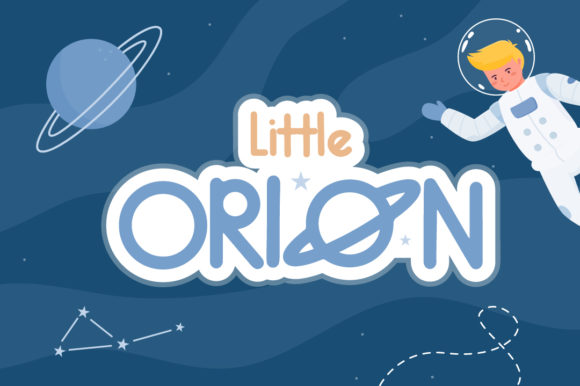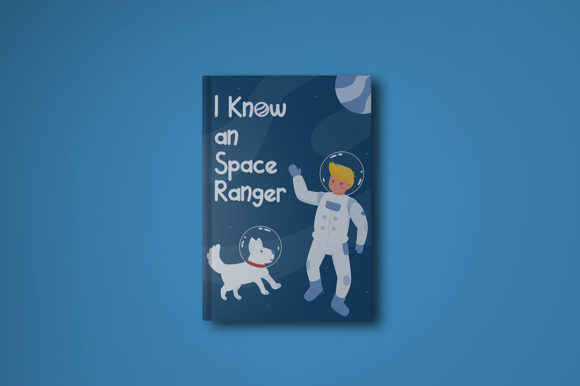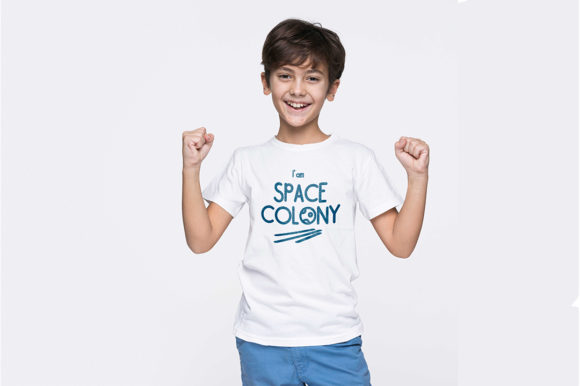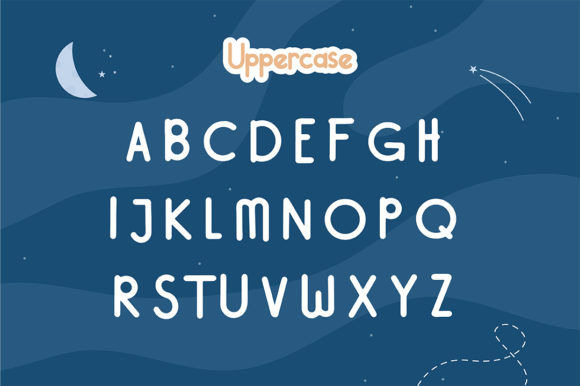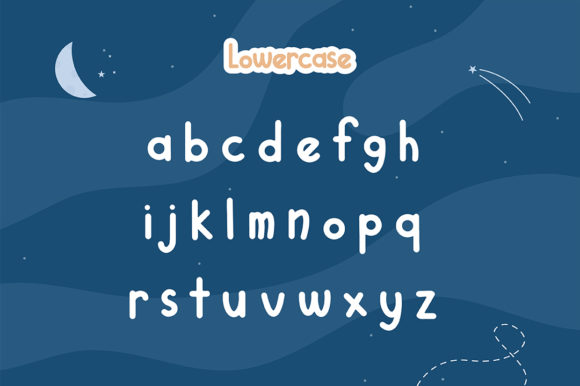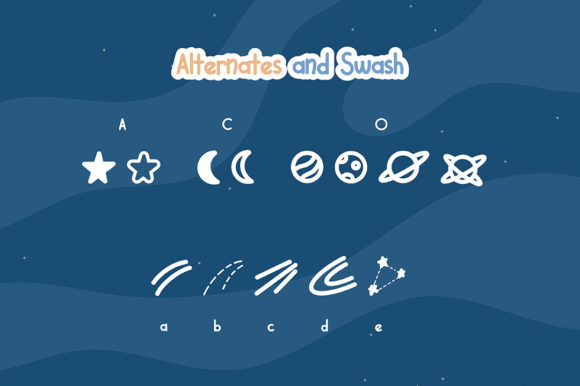
Little Orion Font
About Little Orion Font
Little Orion is a lovely and incredibly cute handwritten font. Get creative with its sweet and friendly style, and use it to brighten up any kids and school project!